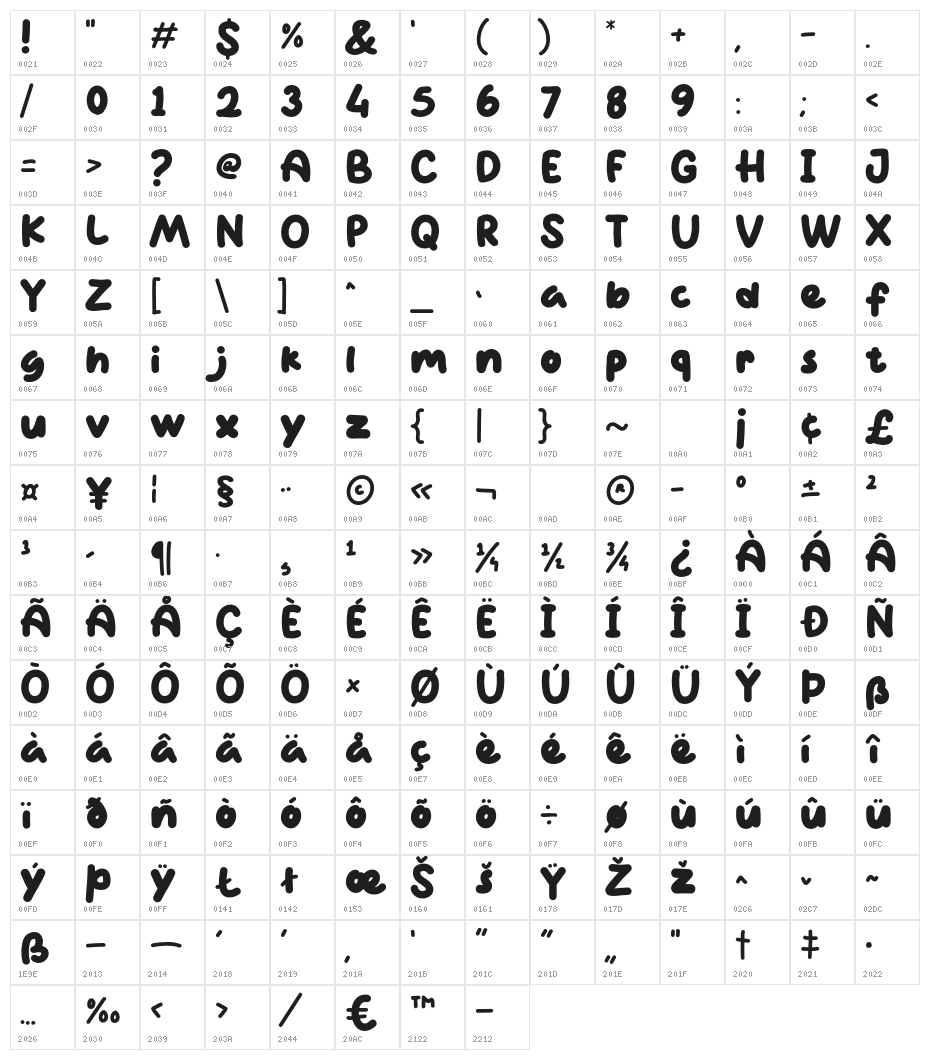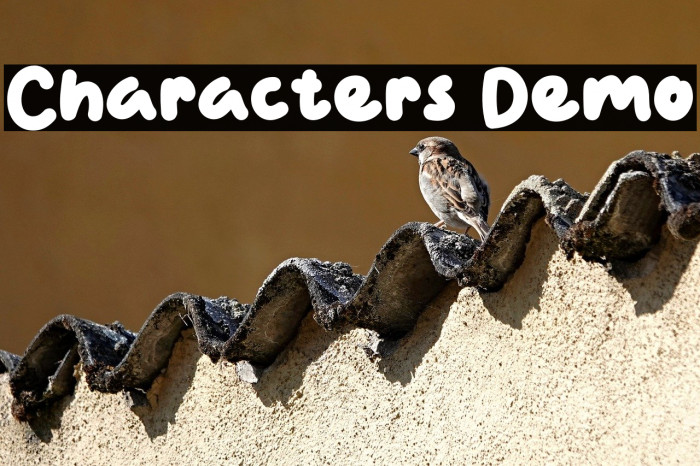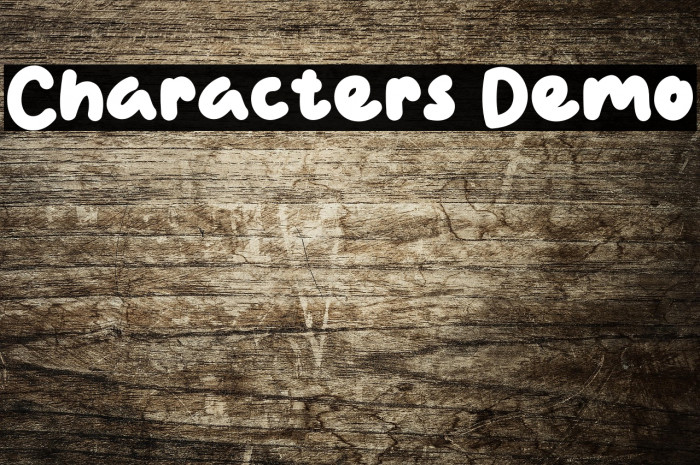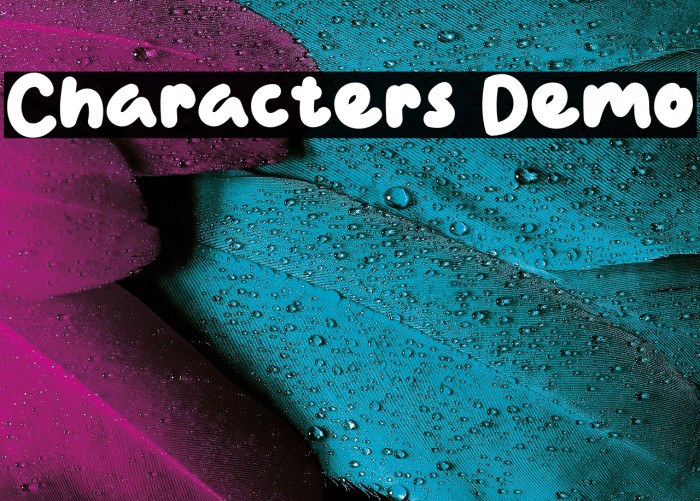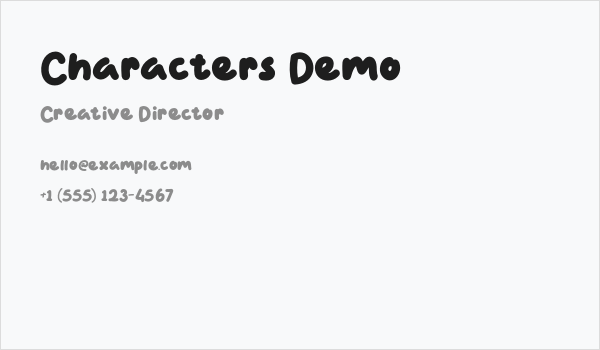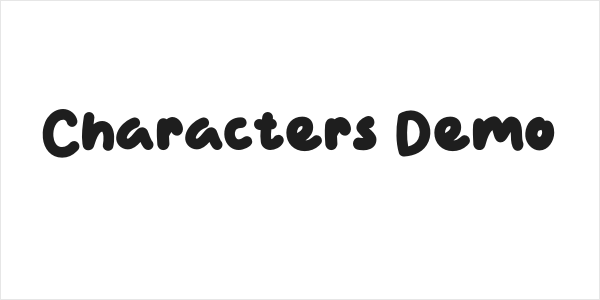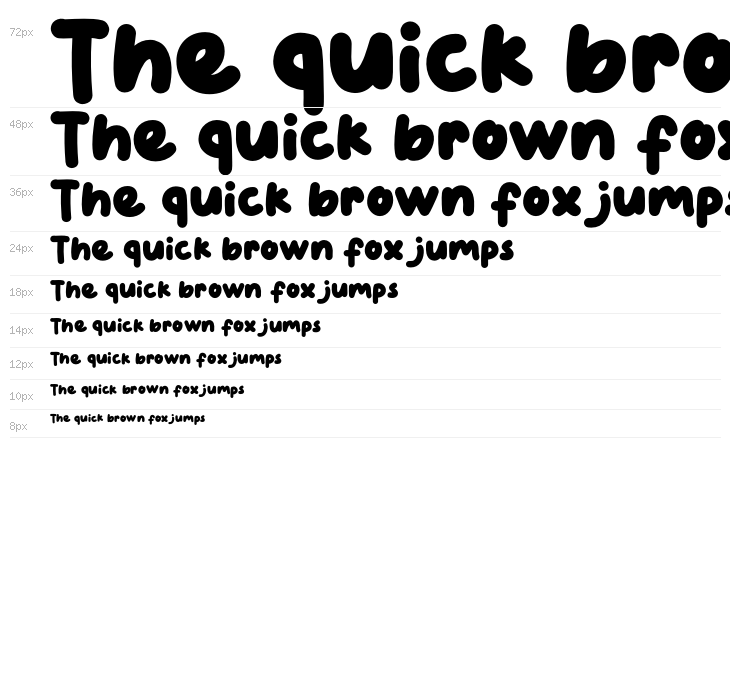
Characters Demo Font
Characters Demo Description
This playful and bold font features rounded, thick strokes that give it a friendly and approachable appearance. The characters are slightly irregular, adding a whimsical touch to the overall design. The uppercase and lowercase letters maintain a consistent style, with the lowercase letters being slightly more compact. The numerals are equally bold and rounded, ensuring readability and cohesion with the alphabet. Special characters follow the same design principles, making them easily recognizable and harmonious with the rest of the font. This font's unique style makes it ideal for projects that require a fun and engaging visual element.
| Proposed Projects | Ideal for children's books, playful branding, posters, and social media graphics. |